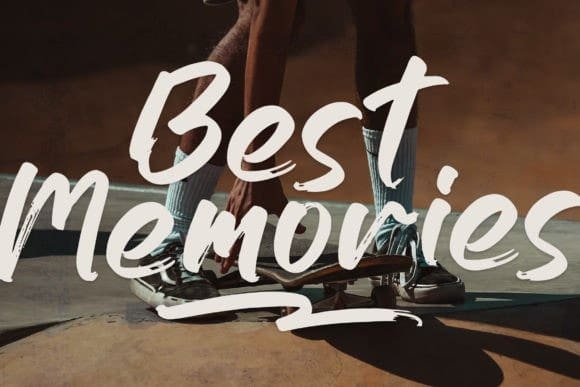
Getsrek Brush Font
Getsrek Brush Font – Handwritten font is suitable for any project such as logos, branding projects, homeware designs, product packaging, mugs, quotes, posters, shopping bags, t-shirts, book covers, name cards, invitation cards, greeting cards, labels, photography, watermark, special events, and all your other lovely projects that need a beautiful script taste.